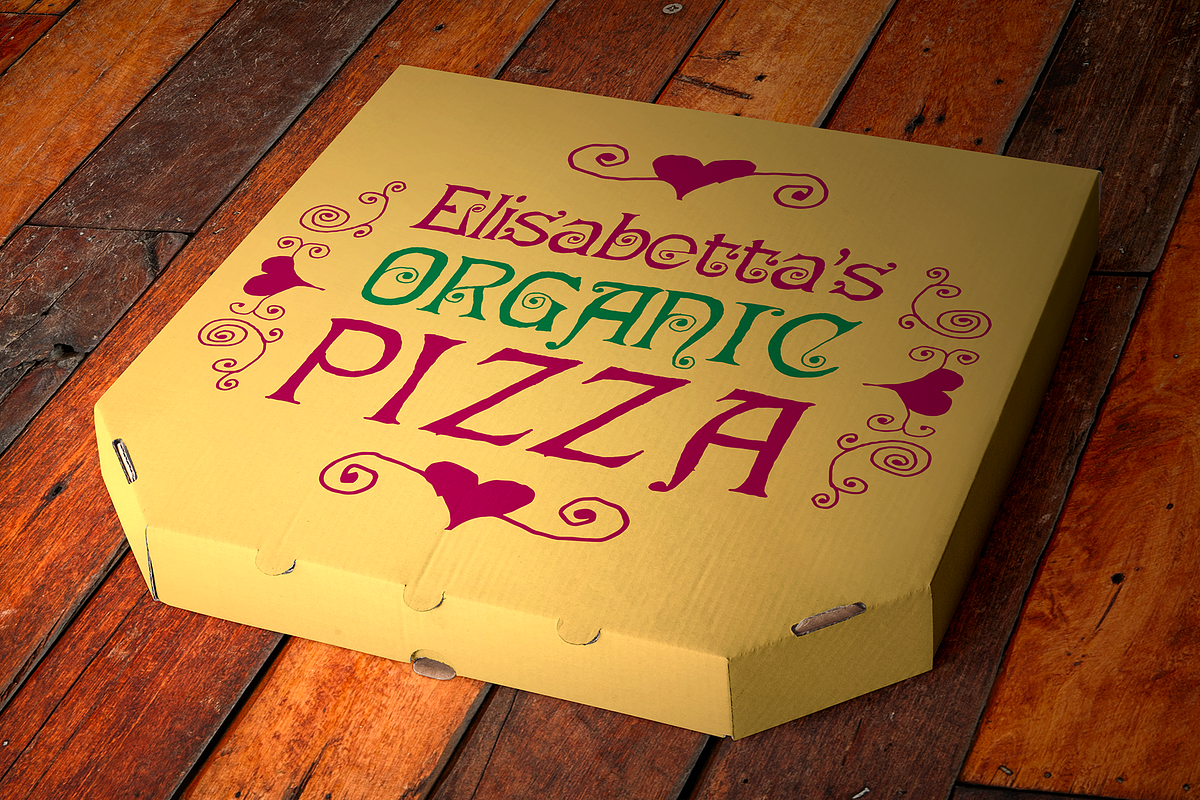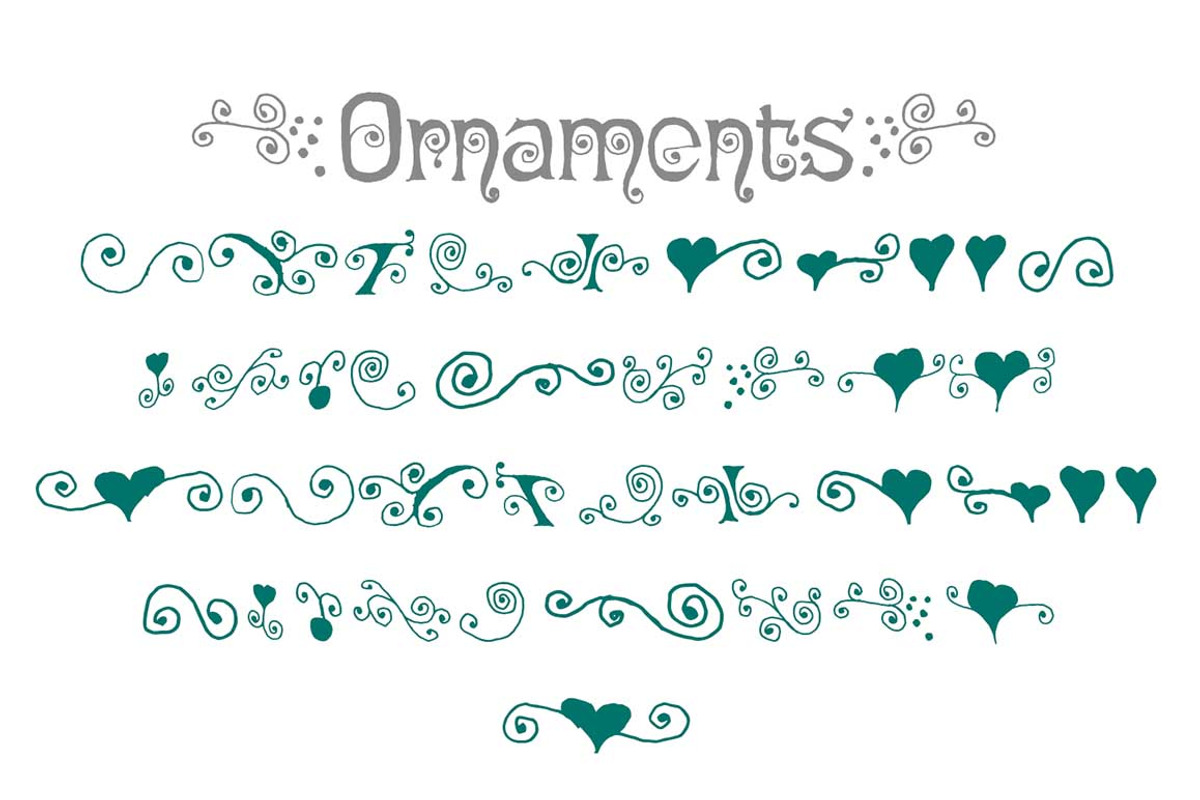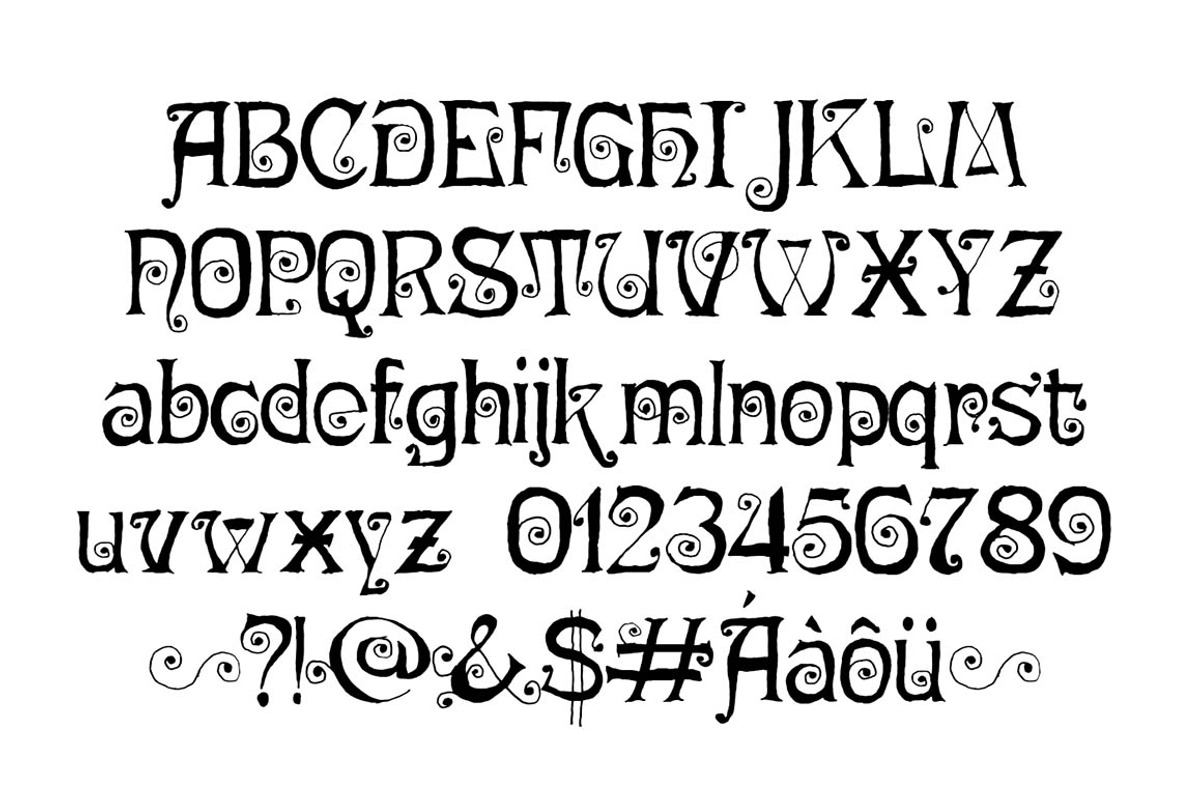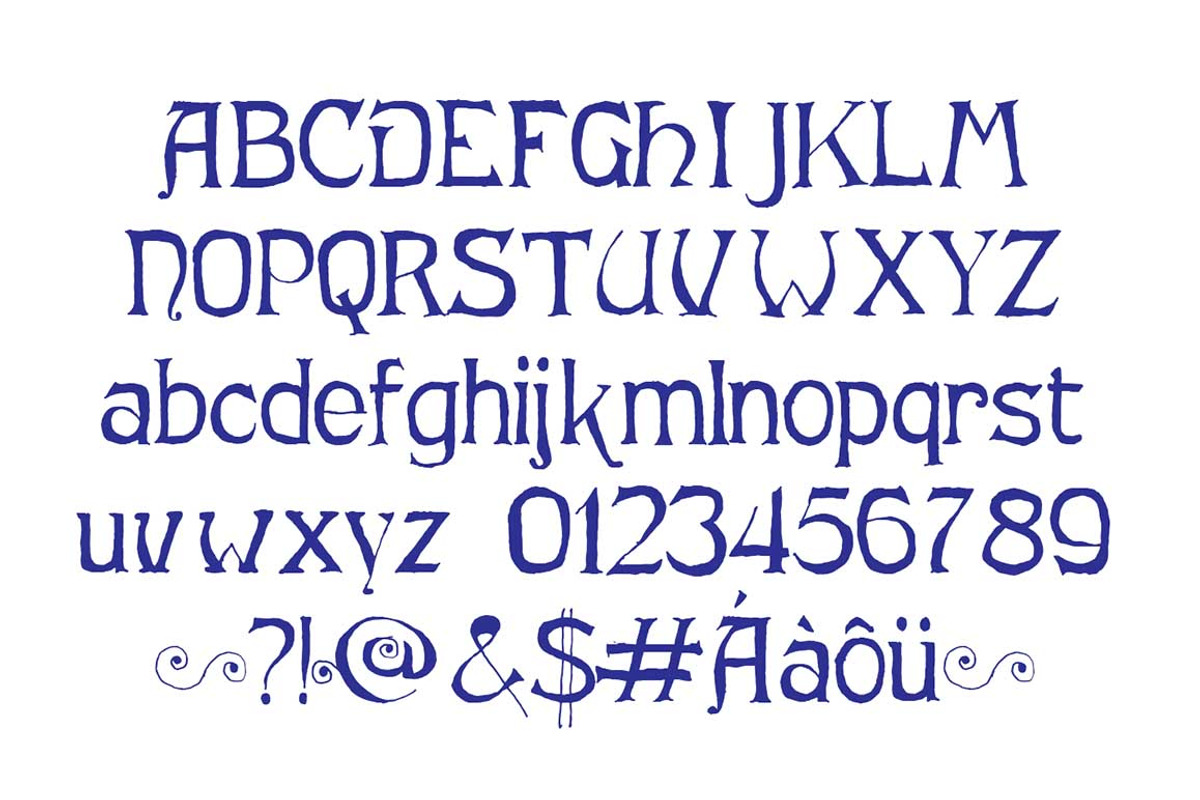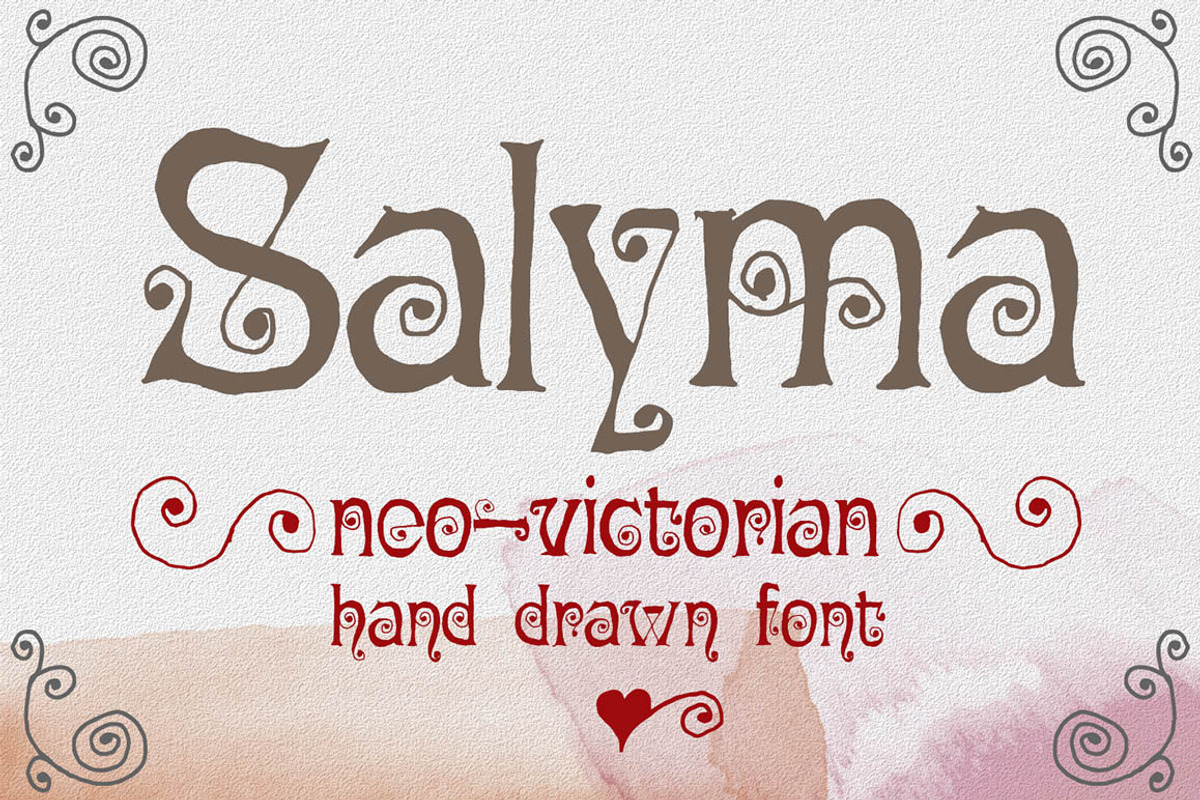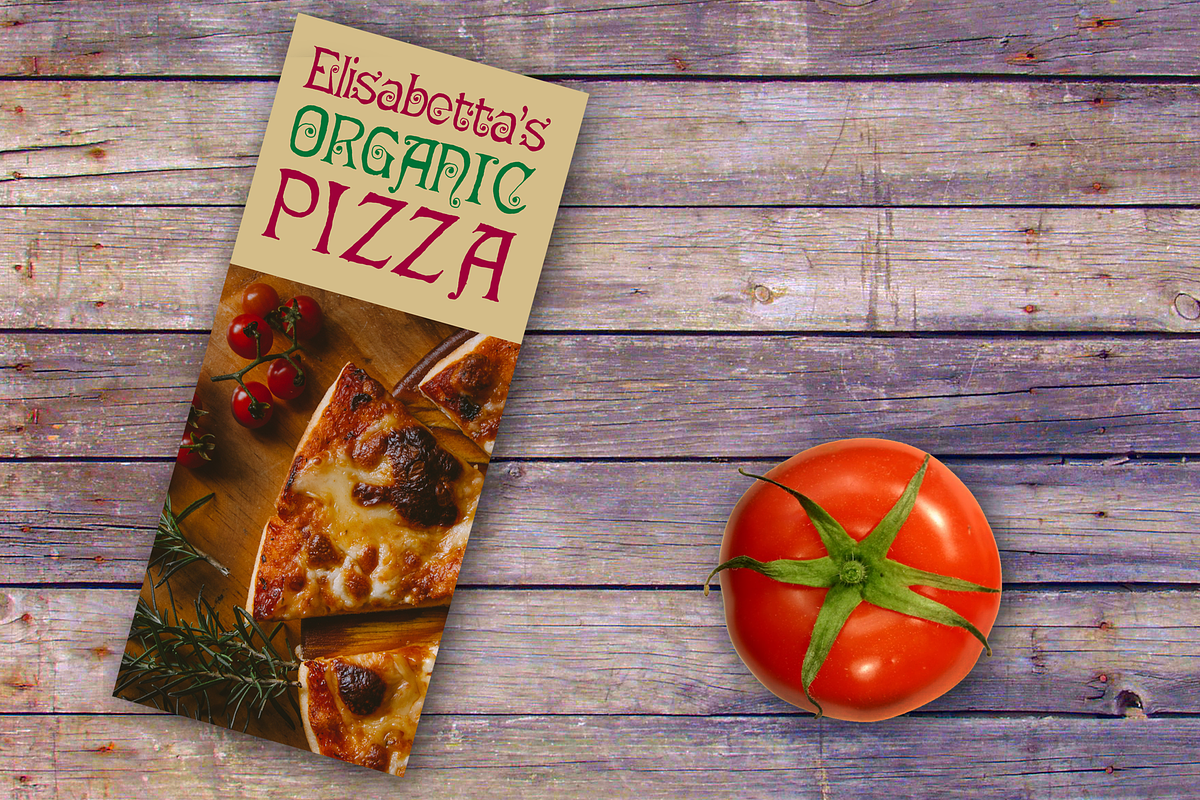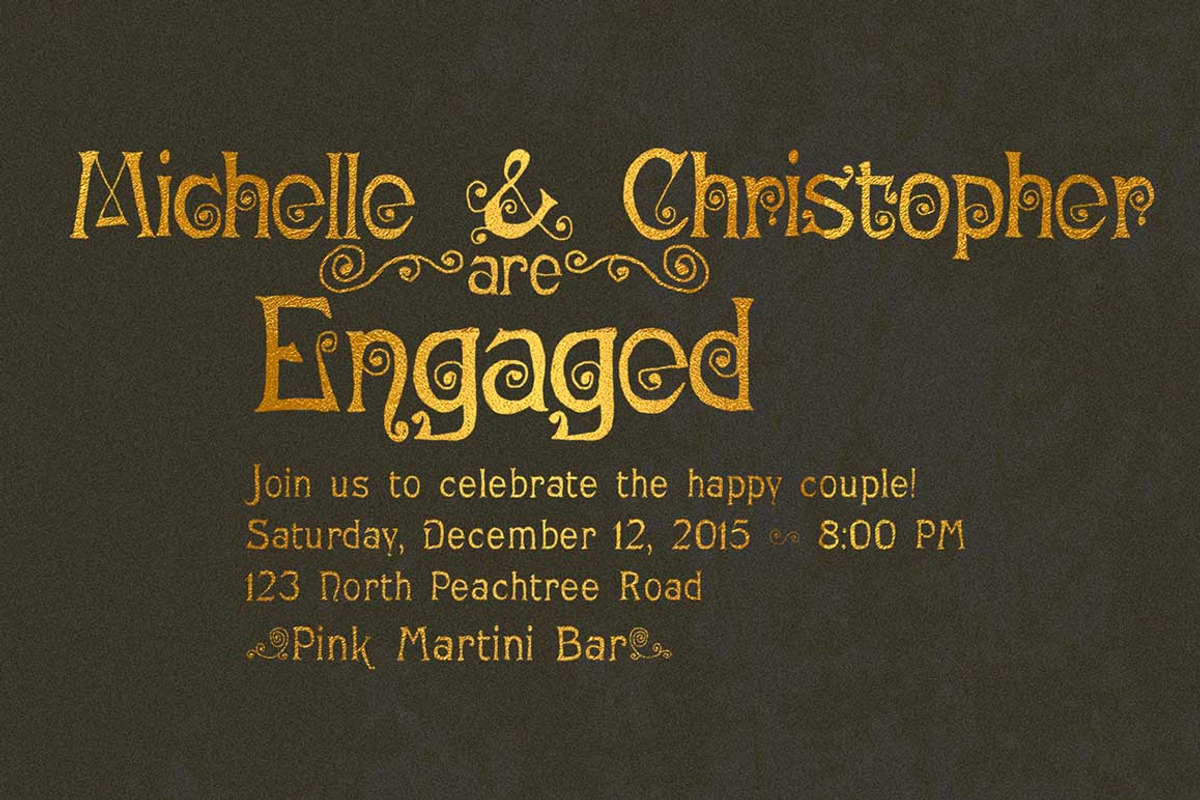
Salyma romantic typeface
Salyma romantic typeface by Minhocossauro Emporium is a font selected for branding, posters, packaging, typography.
- A set of matching ornaments is included to add flair to your designs.
Why Salyma romantic typeface is worth a look
Salyma romantic typeface by Minhocossauro Emporium fits naturally into Branding, posters, packaging, typography.